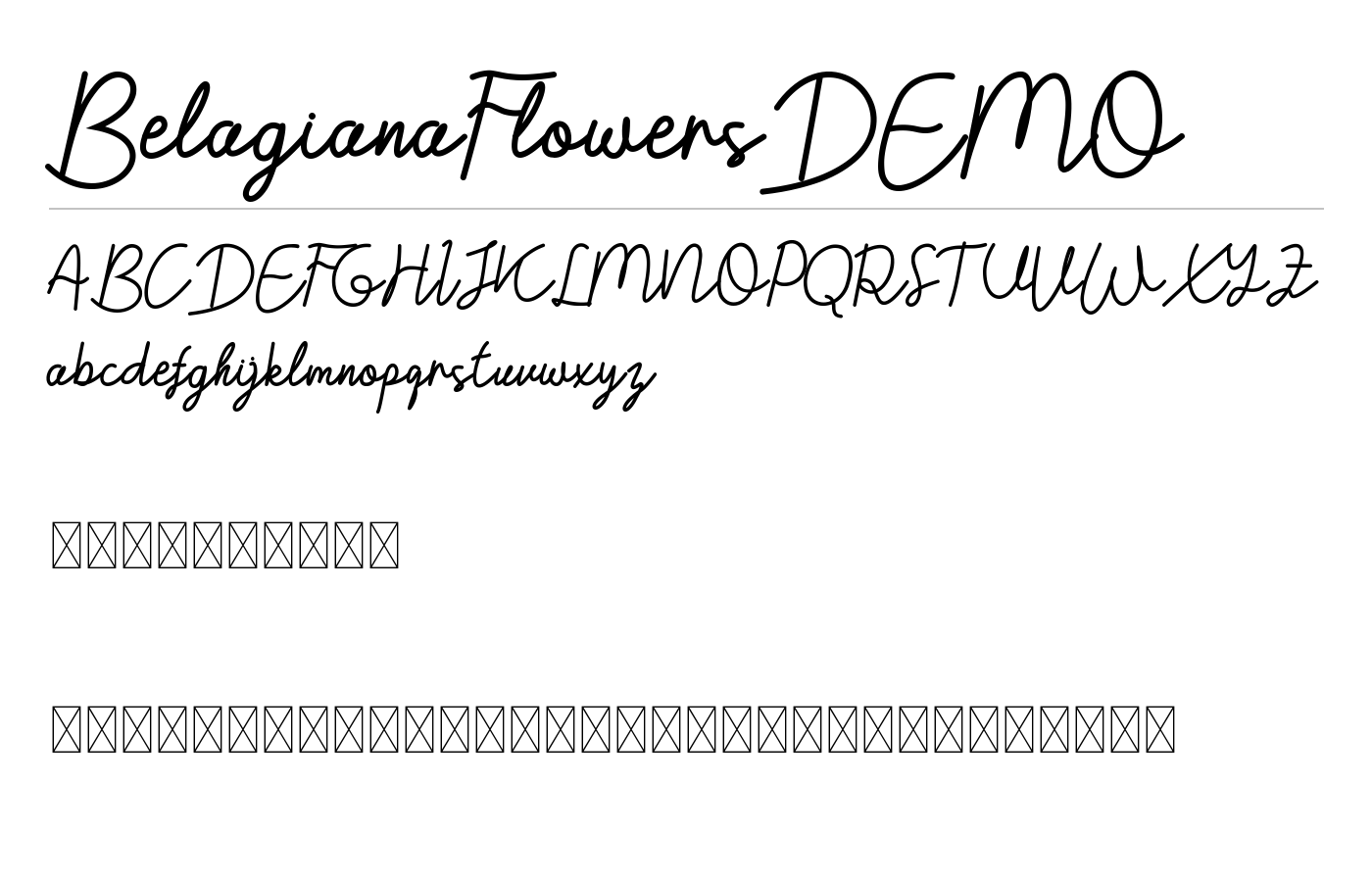
BelagianaFlowersDEMO is a delicate, handwritten script font with a light weight and a casual, flowing style that feels both charming and approachable. Its slender, slightly irregular strokes and connected letterforms give it an elegant yet personal touch, making it ideal for invitations, branding, and creative projects that seek a warm and friendly vibe. This font shines in designs that want to convey a sense of uniqueness and heartfelt expression.
BelagianaFlowersDEMO Font
About BelagianaFlowersDEMO Font